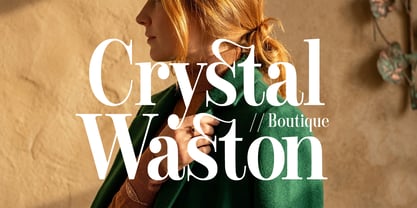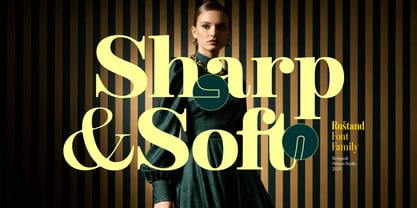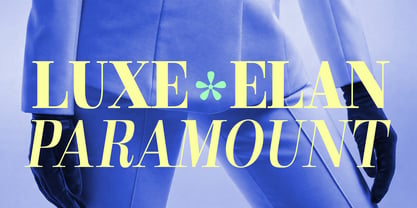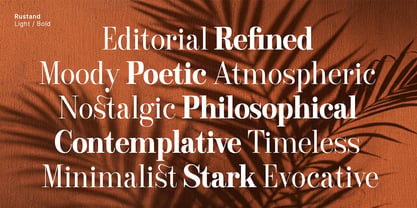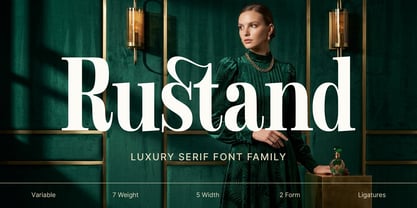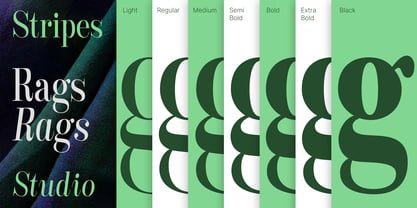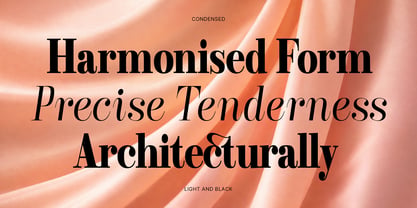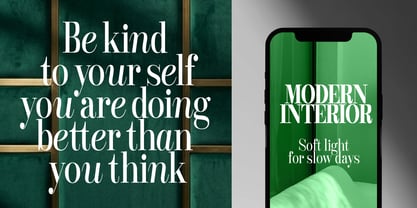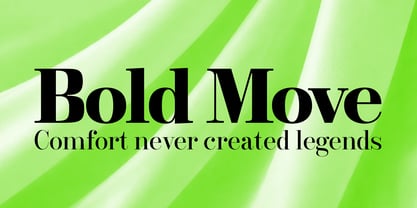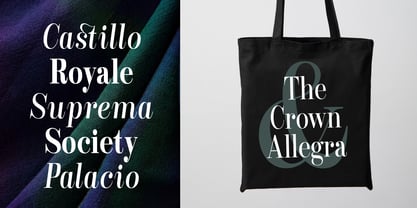
Rustand
by Stripes Studio
The Rustand Font Family was designed by Yur Lis and published by Stripes Studio. Rustand contains 142 styles and family package options. More about this family
Rustand is a luxury serif font designed to deliver an elegant, modern, and sophisticated impression. It features refined thick–thin contrast and beautifully crafted serif details that create a strong yet graceful character. The stylish letterforms combined with unique ligatures make this font perfect for premium design projects such as fashion branding, luxury logos, magazines, product packaging, invitations, and editorial headlines. With multiple weights and widths available, Rustand offers excellent flexibility while maintaining a timeless and high-end aesthetic.